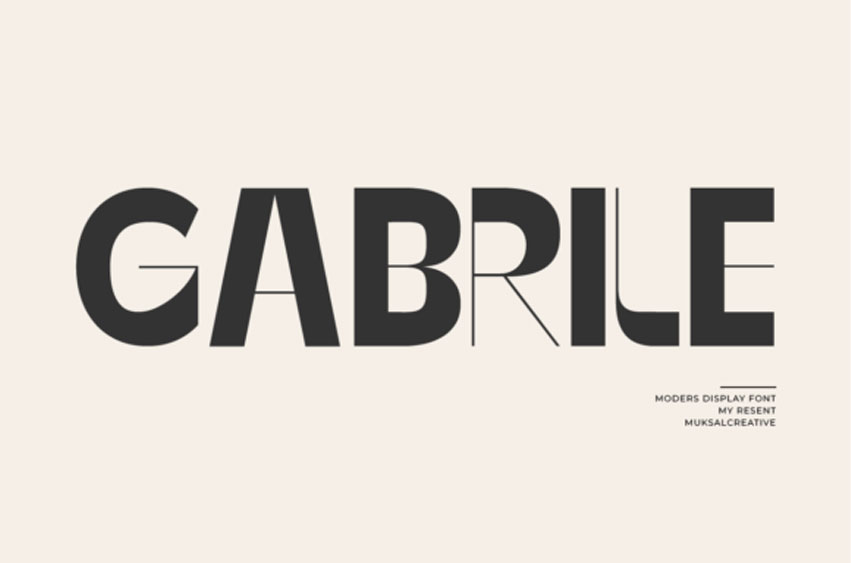
Gabrile Font is a modern display font with special glyphs, ornaments, and multilingual support. It’s a very versatile font that works great in large and small sizes.
Perfect for editorial projects, Logo design, Clothing Branding, product packaging, magazine headers, or simply as a stylish text overlay to any background image.